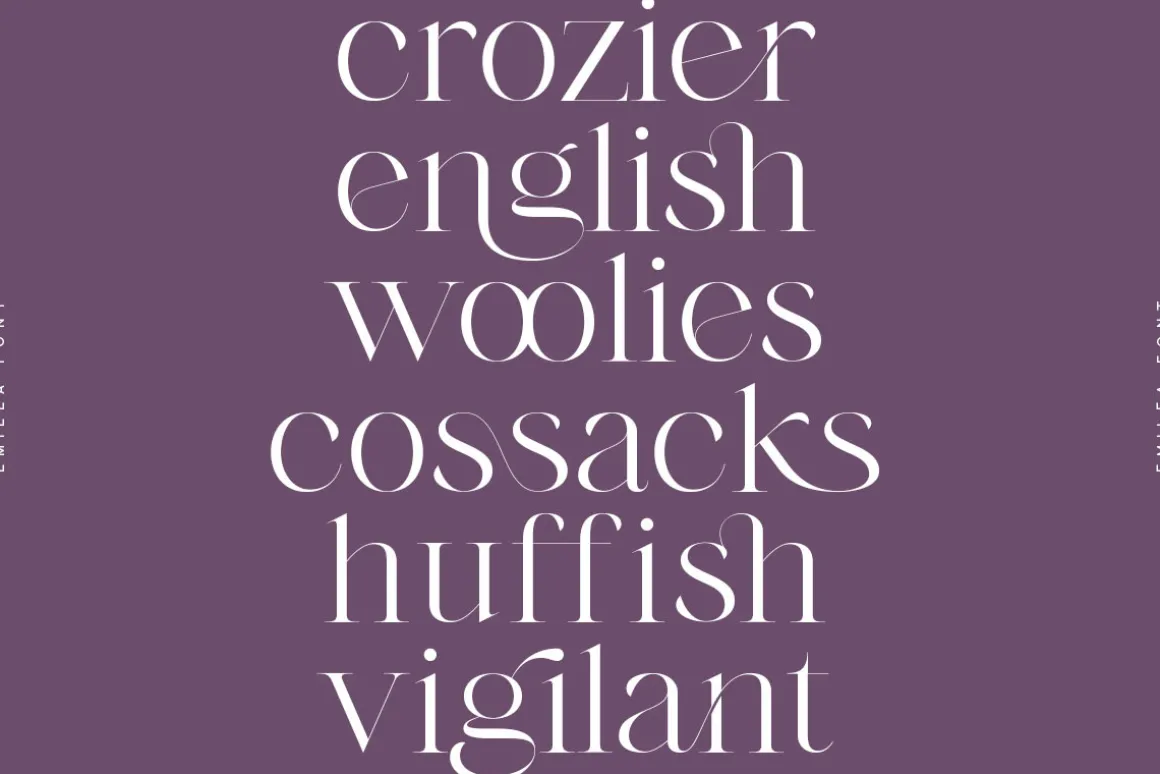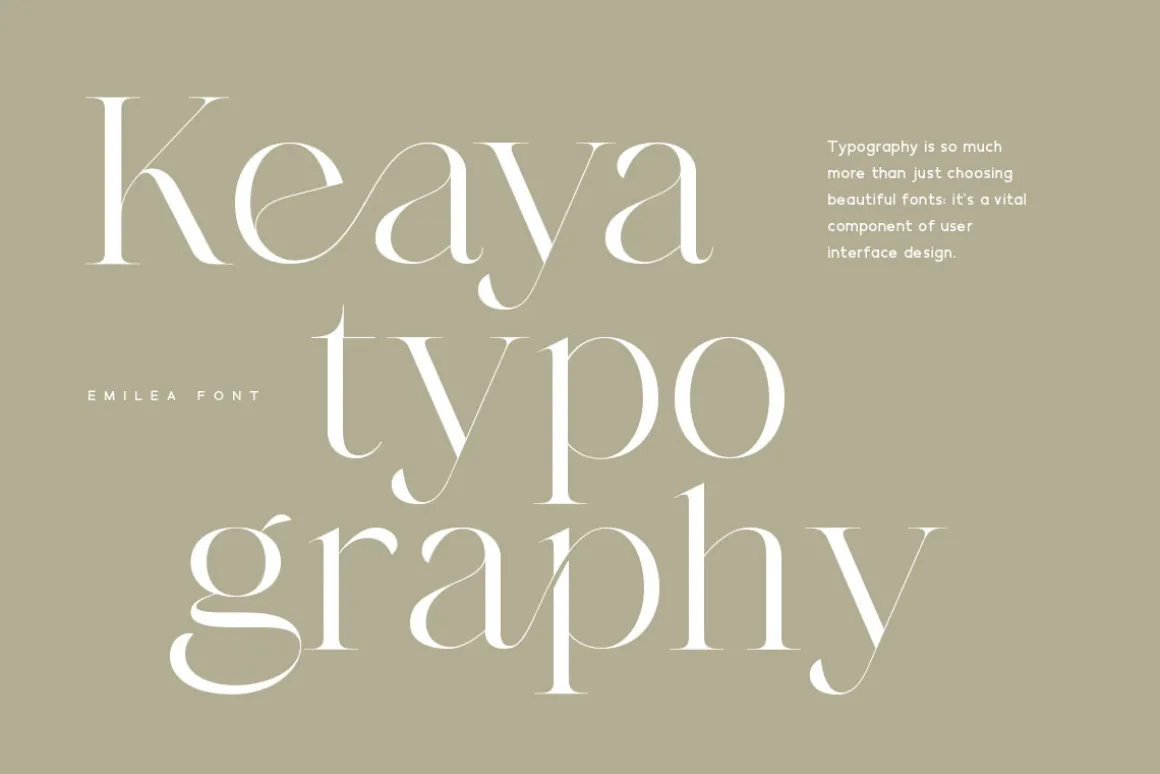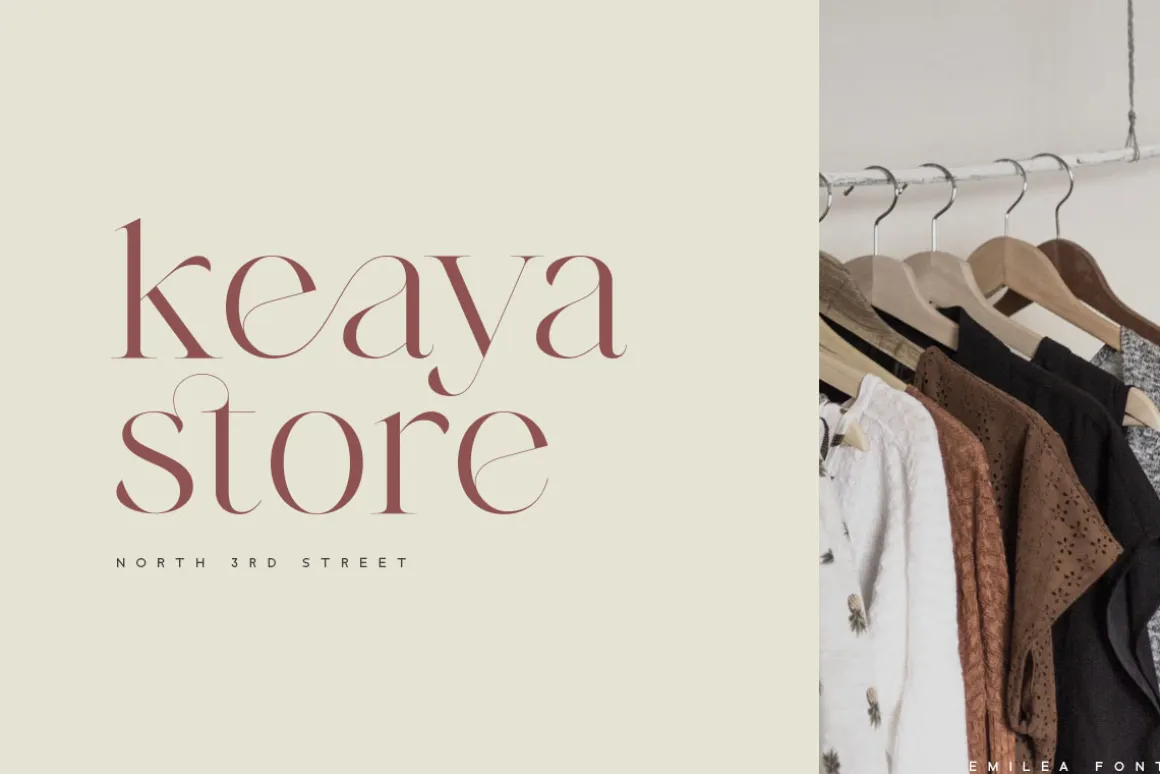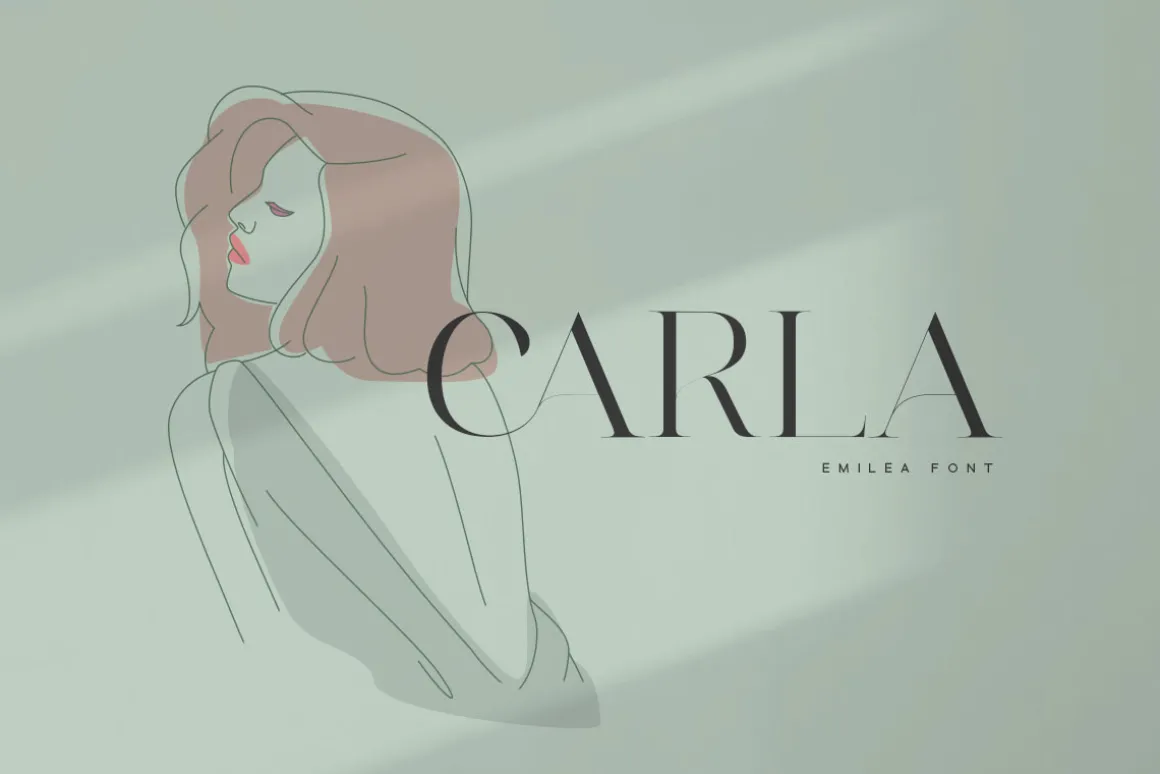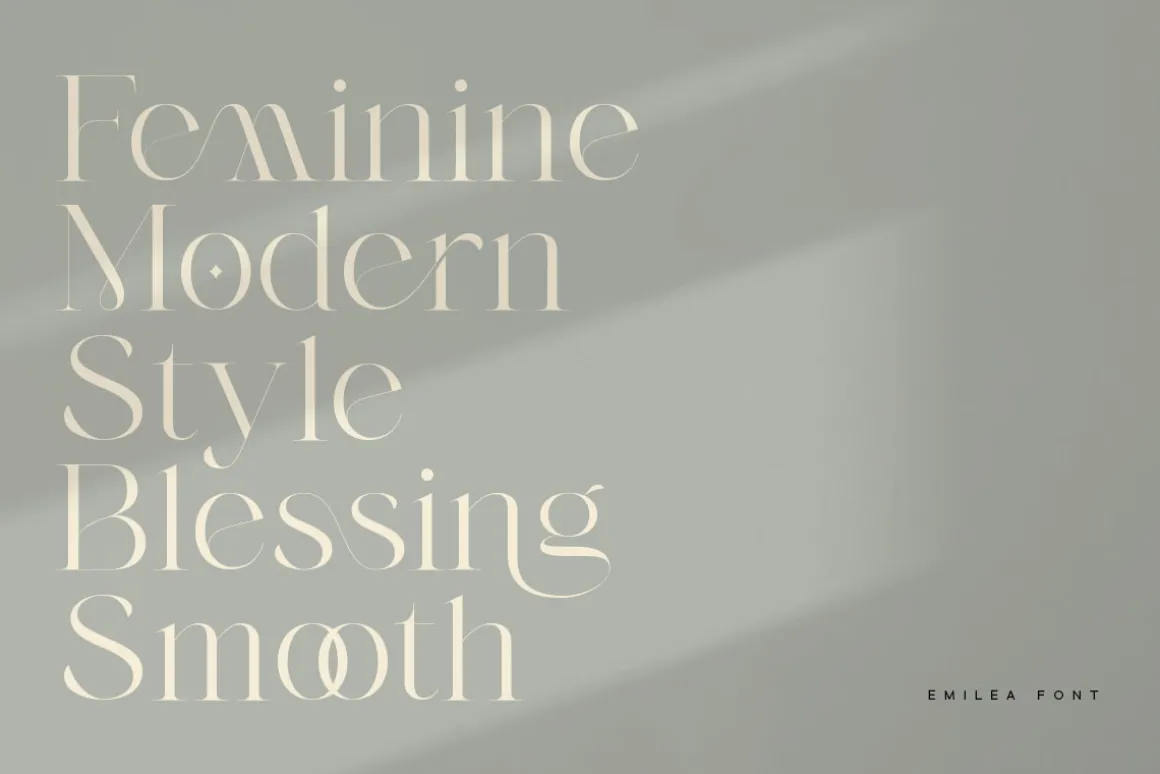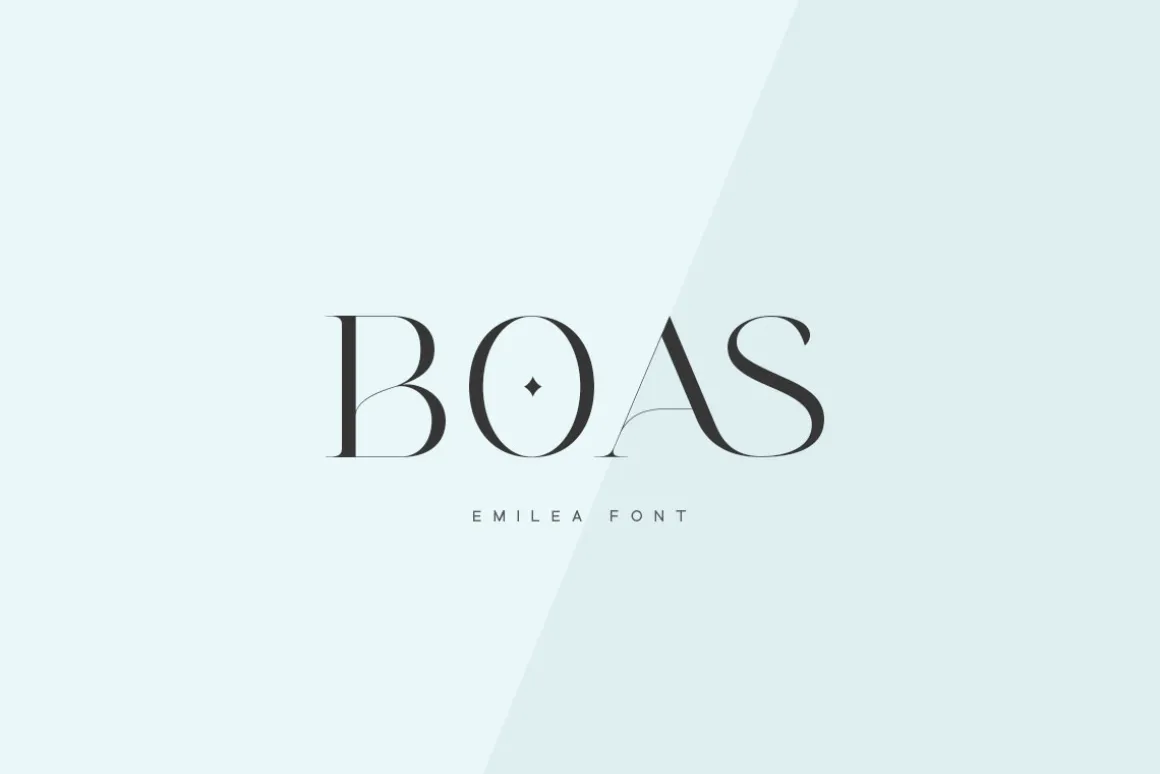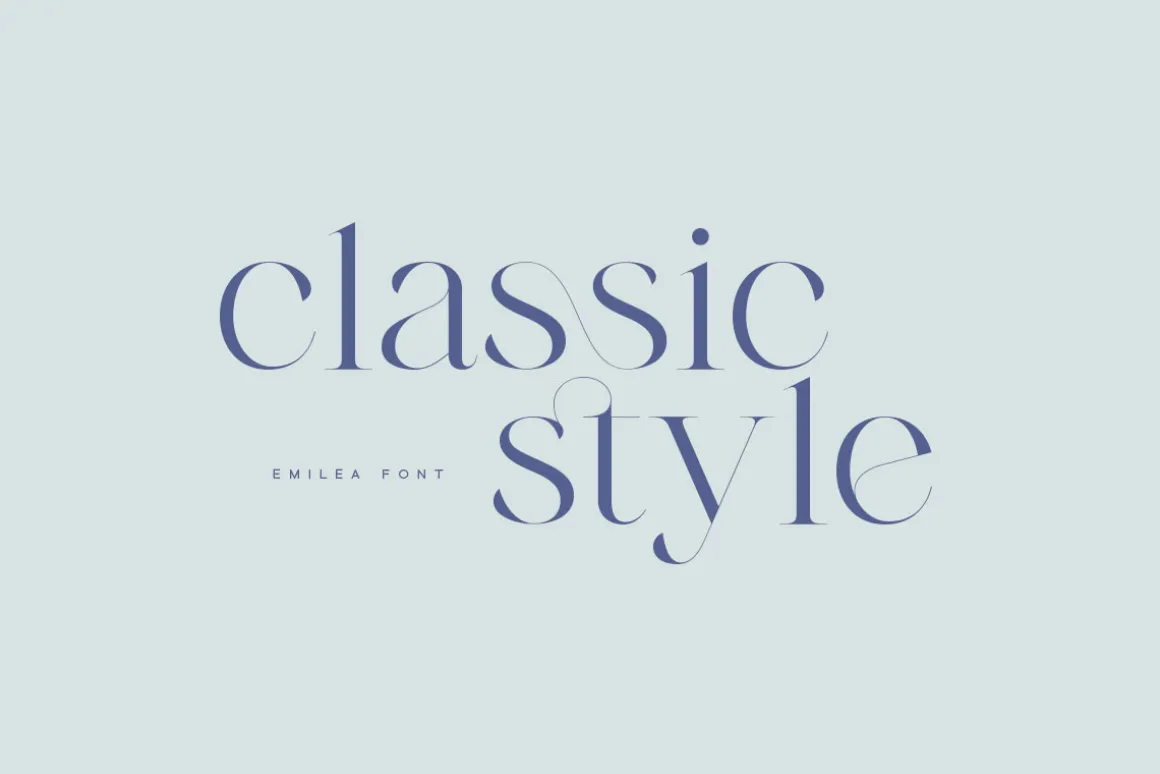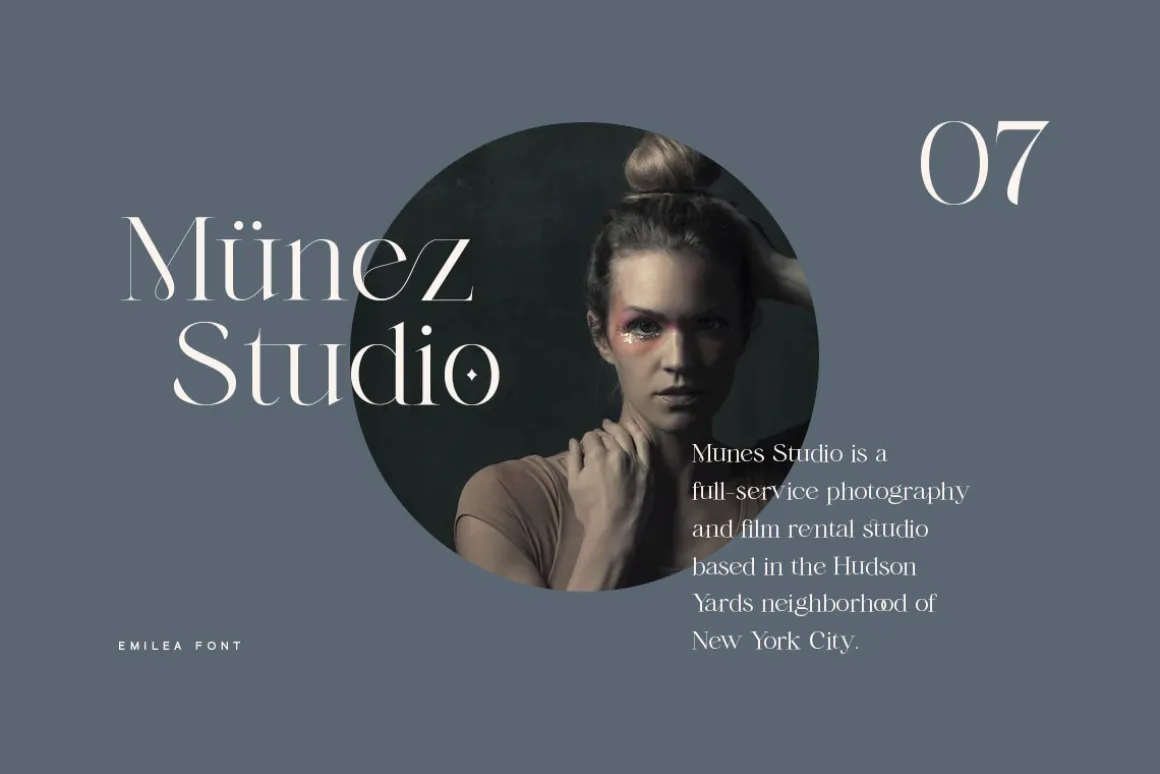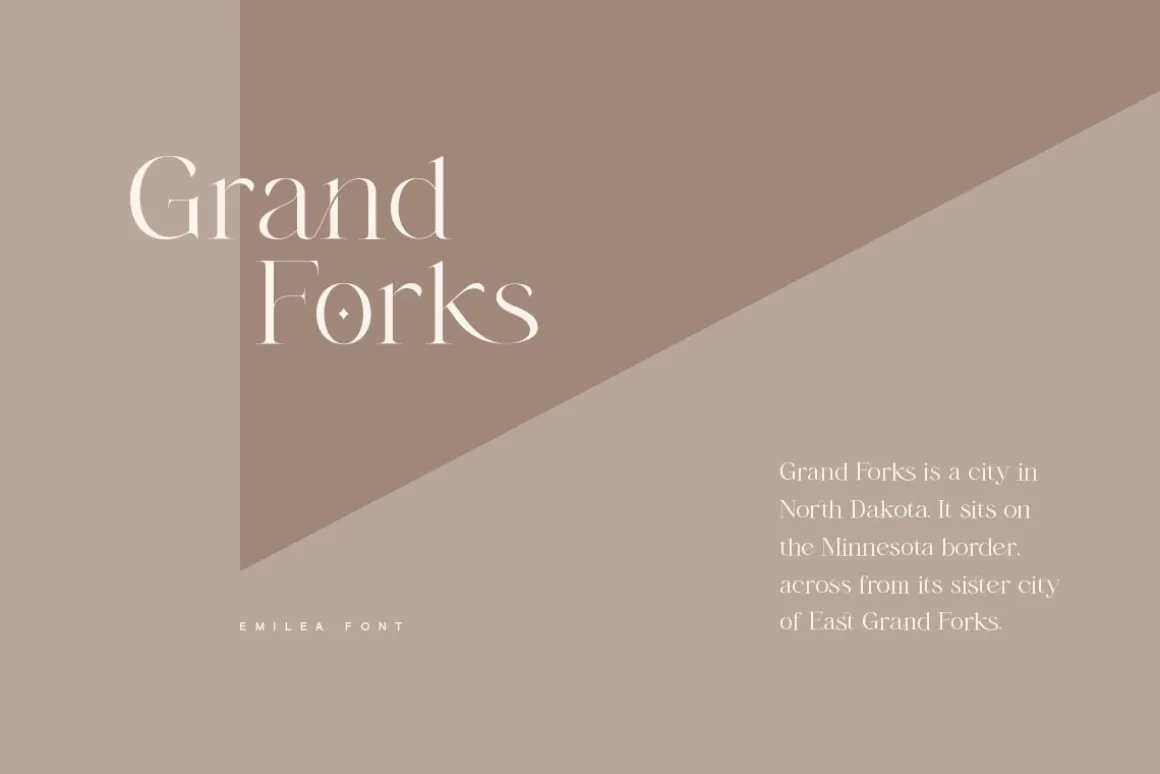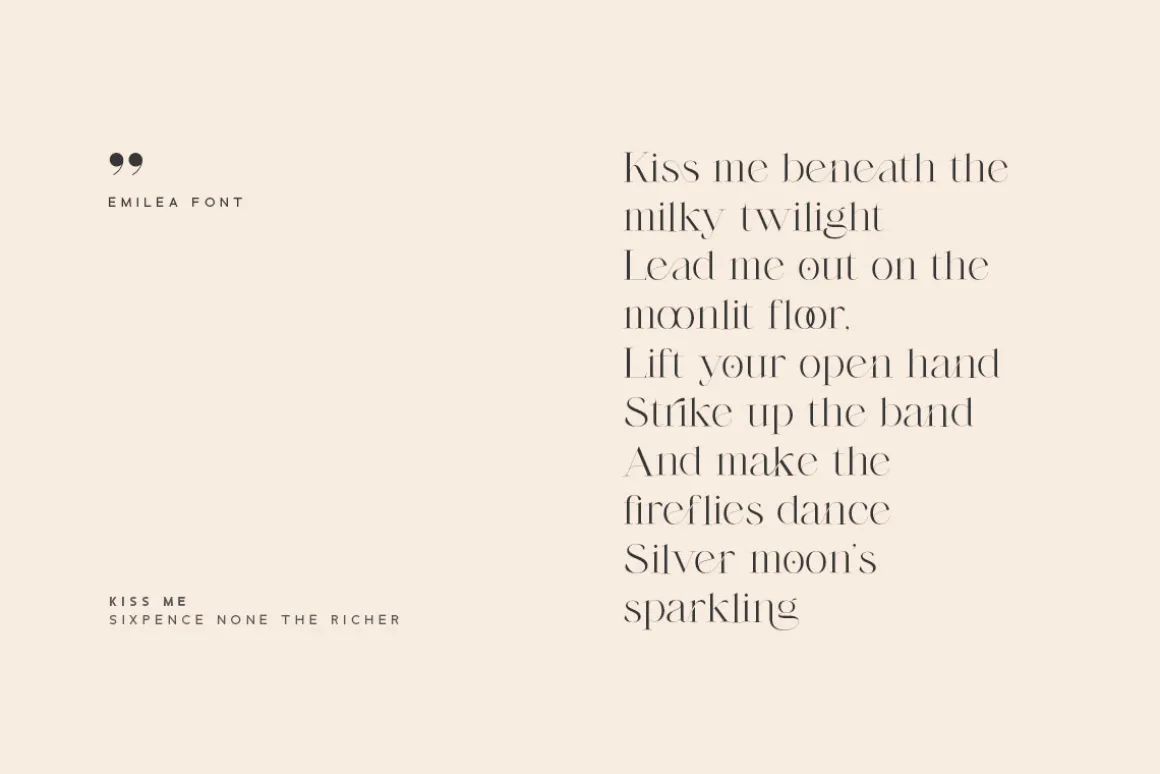
Introducing Emilea Serif Font!
Emilea is modern serif font, every single letters have been carefully crafted to make your text looks unique.
Foreign languages support: ÀÁÂÃÄÅÆÇÈÉÊËÌÍÎÏÐÑÒÓÔÕÖØÙÚÛÜÝàáâãäåæçèéêëìíîïðñòóôõöøùúûüýÿ